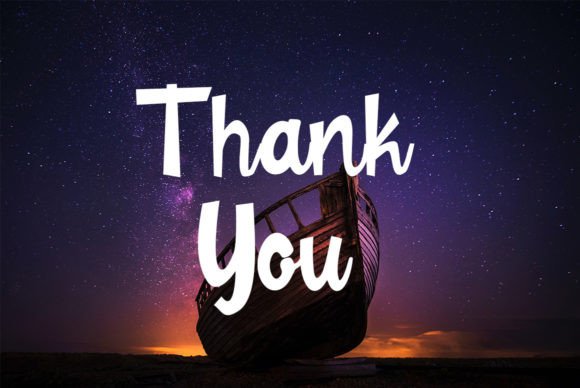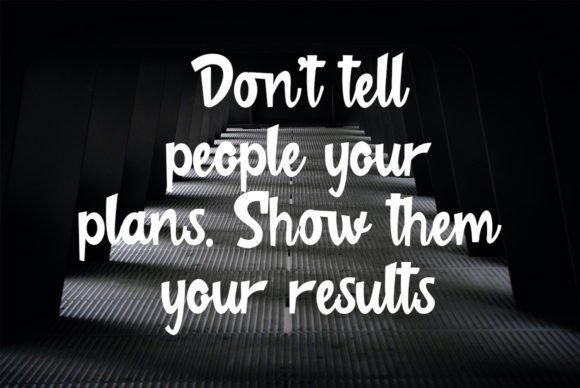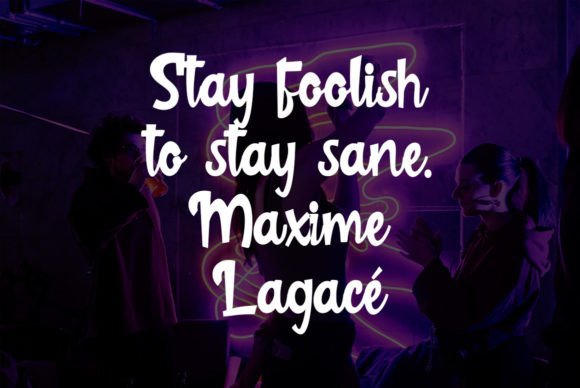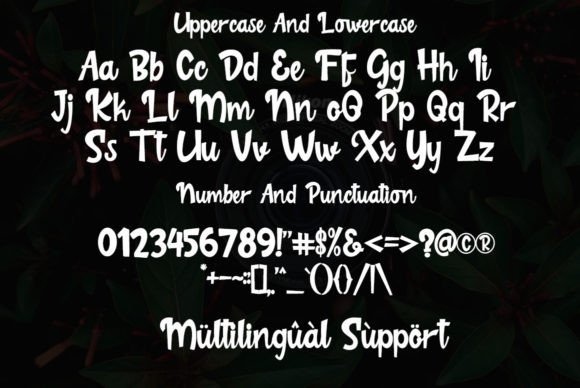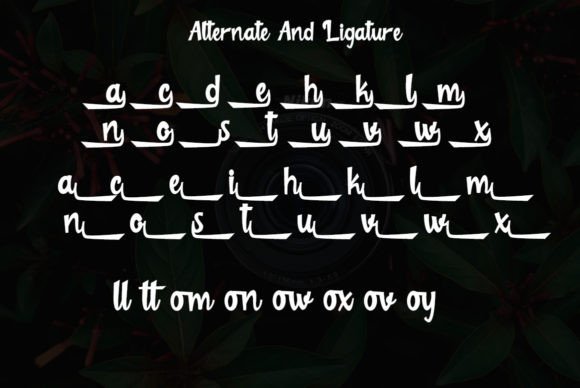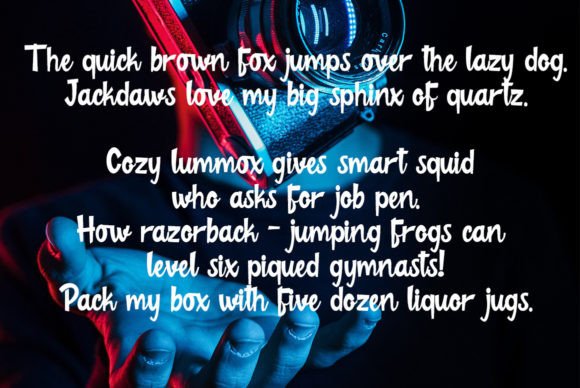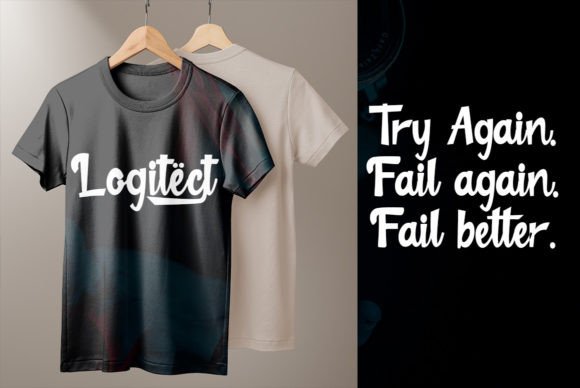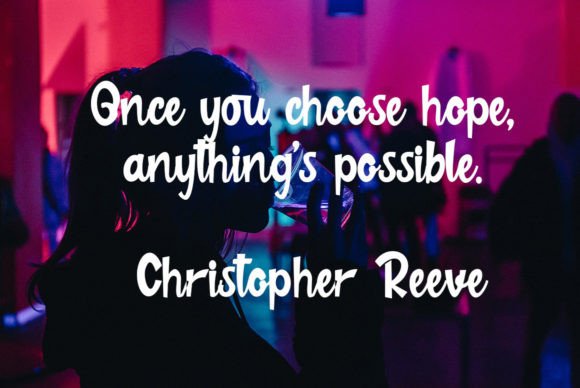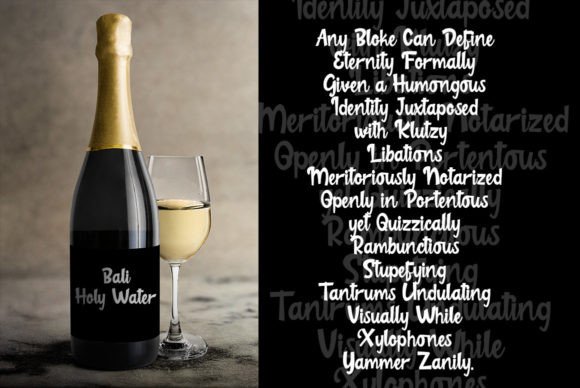
Logitect Font
About Logitect Font
Introducing Logitect, a unique and incredibly interesting script font that stands out as the best choice for creating eye-catching logos, branding, and quotes. With every letter carrying a unique and beautiful touch, Logitect has the power to make your design come alive, adding a distinctive and captivating element to your creative projects.
The uniqueness of Logitect lies in its script design, where each letter is crafted with an individual and interesting touch. This makes the font particularly well-suited for projects where you want to grab attention and create a memorable visual impact.
Imagine Logitect at the forefront of your branding materials, infusing your logo with personality and creativity. Picture it enhancing quotes and statements, making them visually appealing and attention-grabbing. The interesting and unique nature of Logitect sets it apart as a versatile design tool for a range of applications.
In summary, Logitect is not just a font; it’s a creative asset that brings uniqueness and interest to your designs. Embrace its captivating script confidently, knowing that it can be the key to making your logos, branding, and quotes truly eye-catching. Let Logitect be the choice that adds a distinct and lively touch to your creative endeavors, making them memorable and visually dynamic.